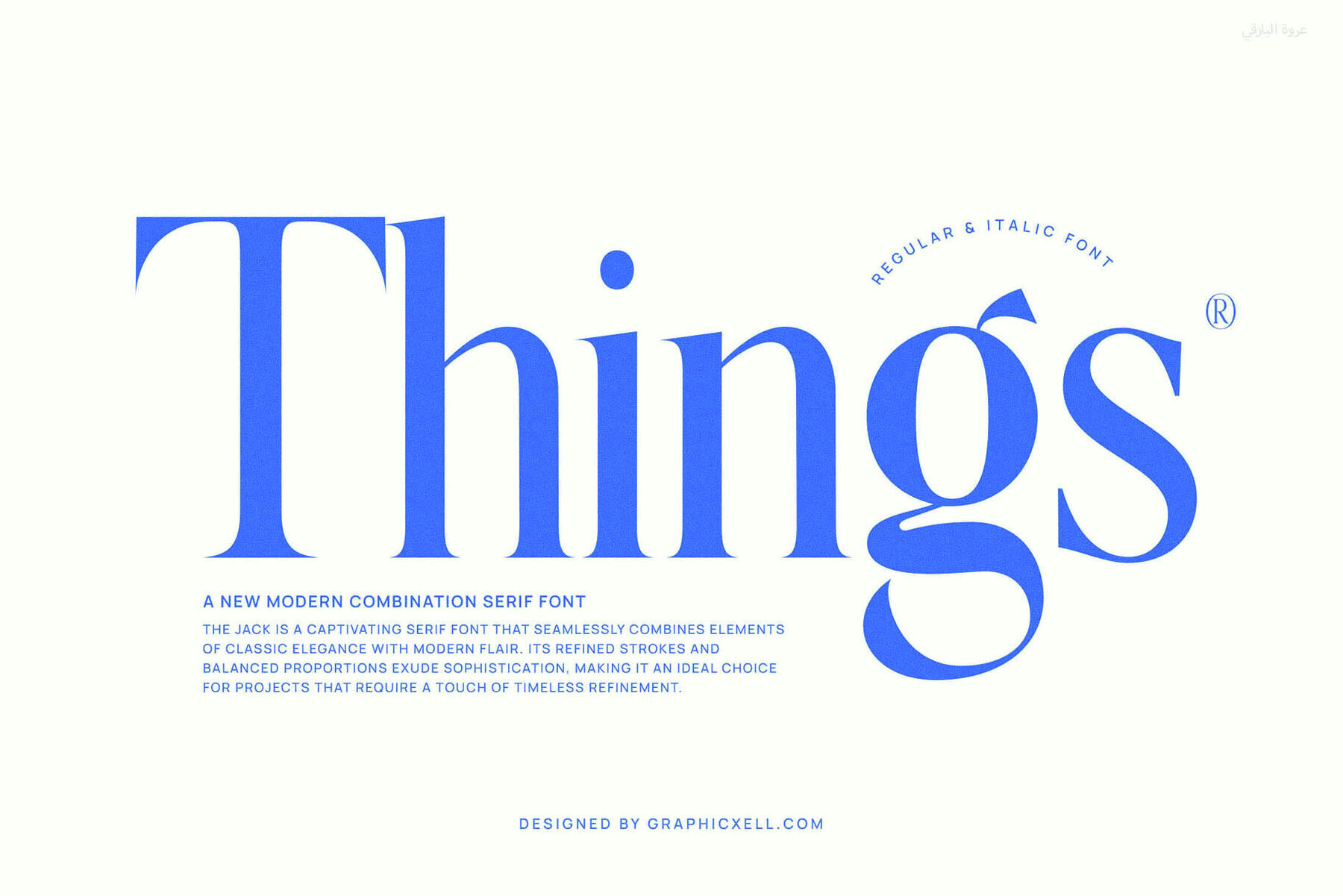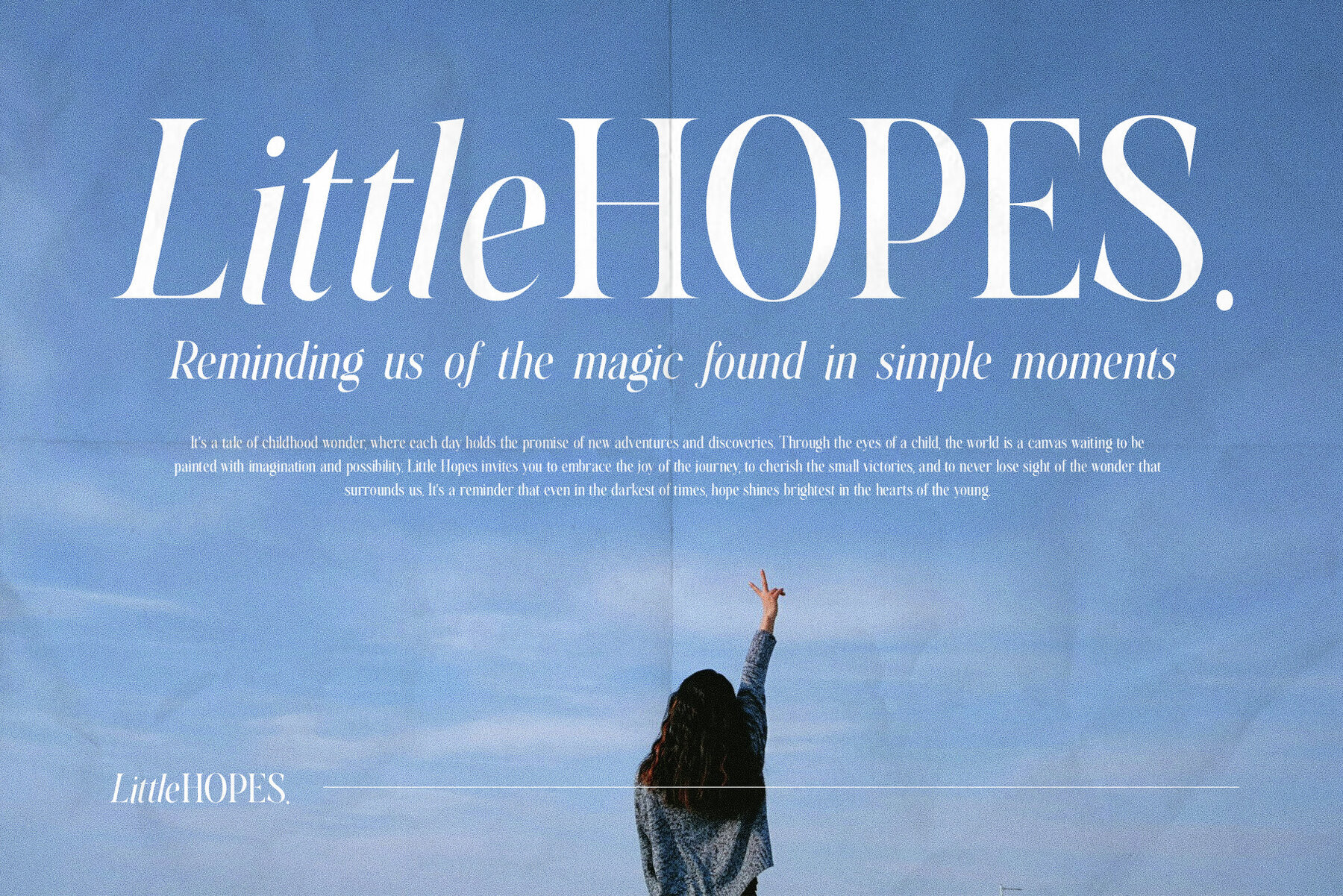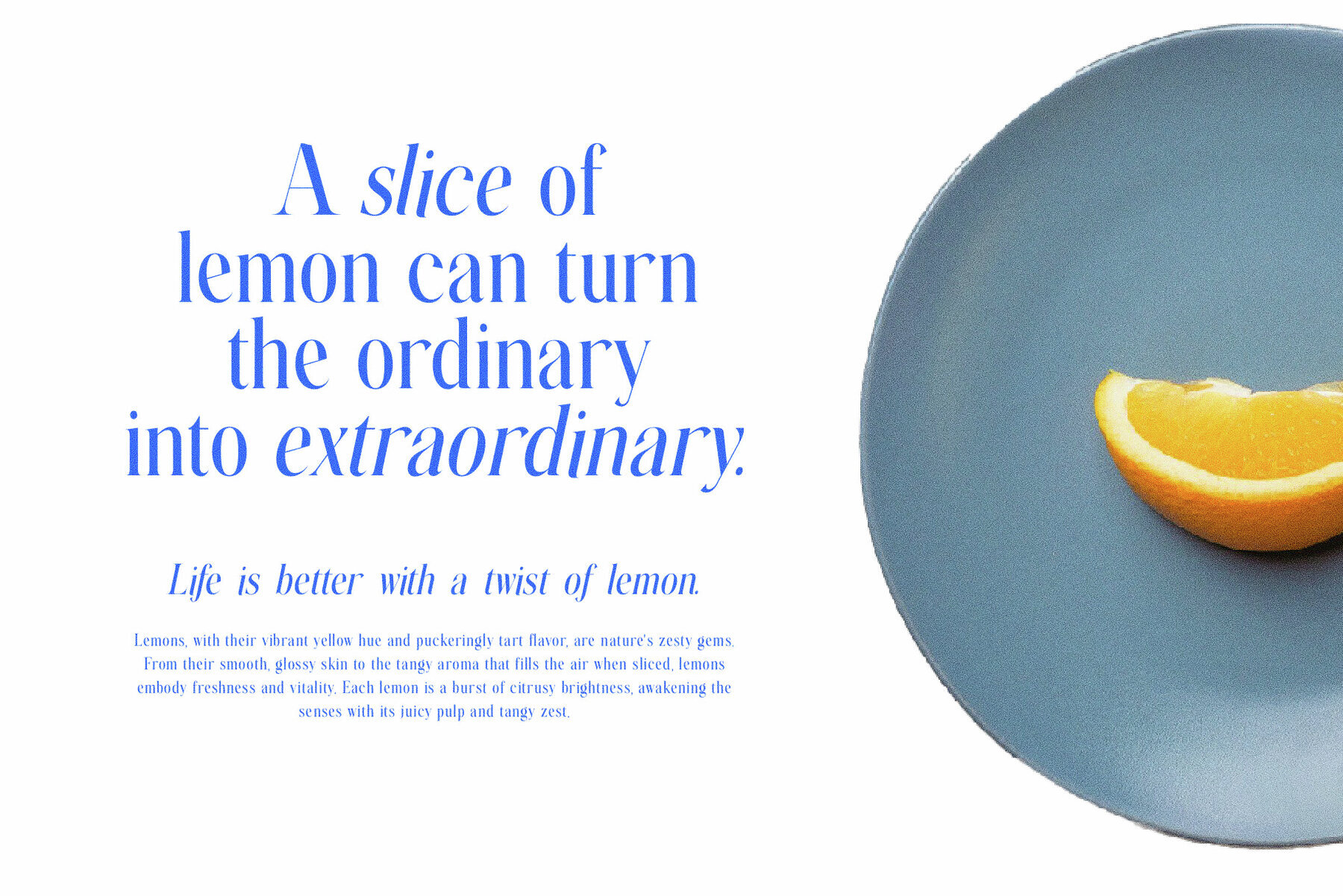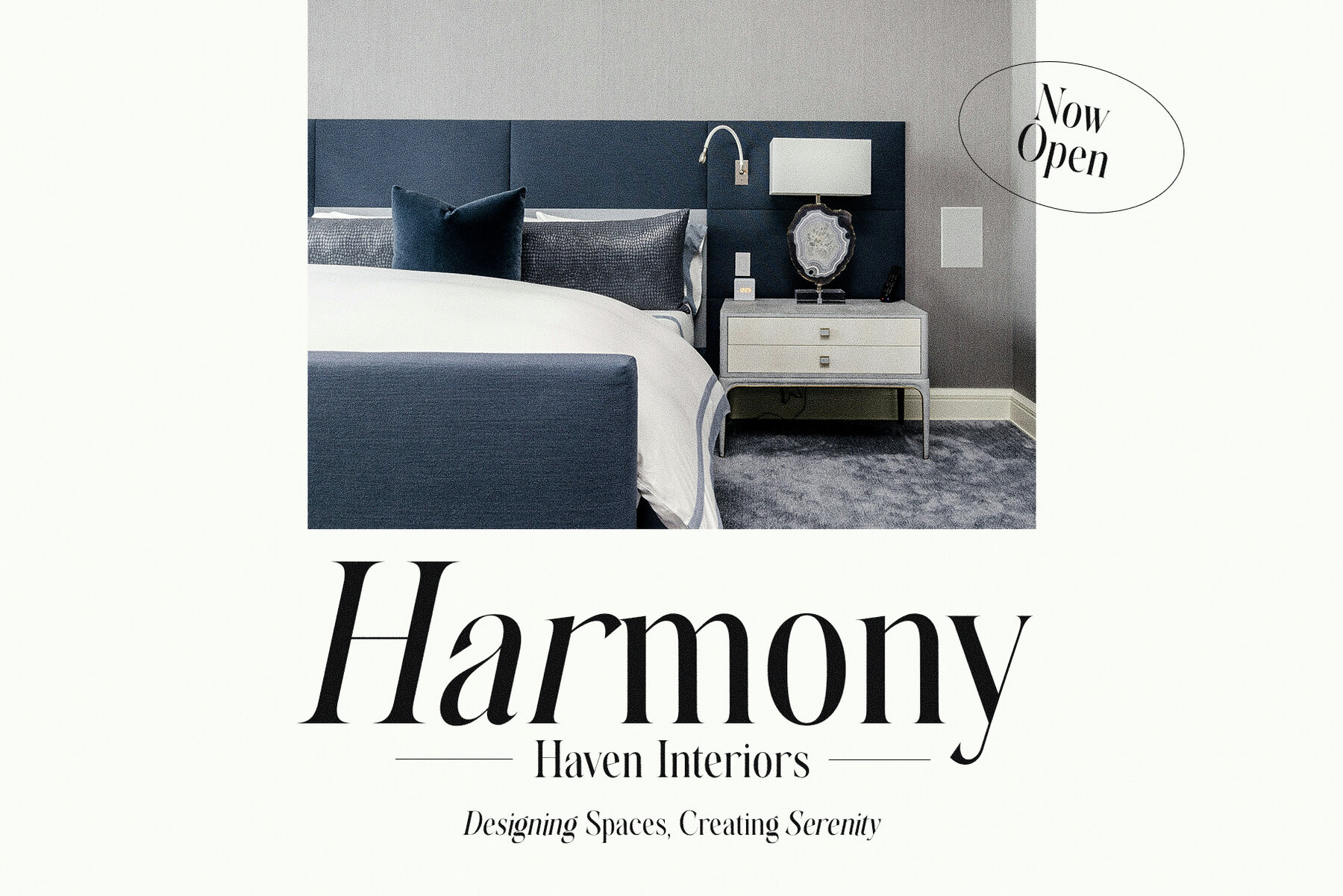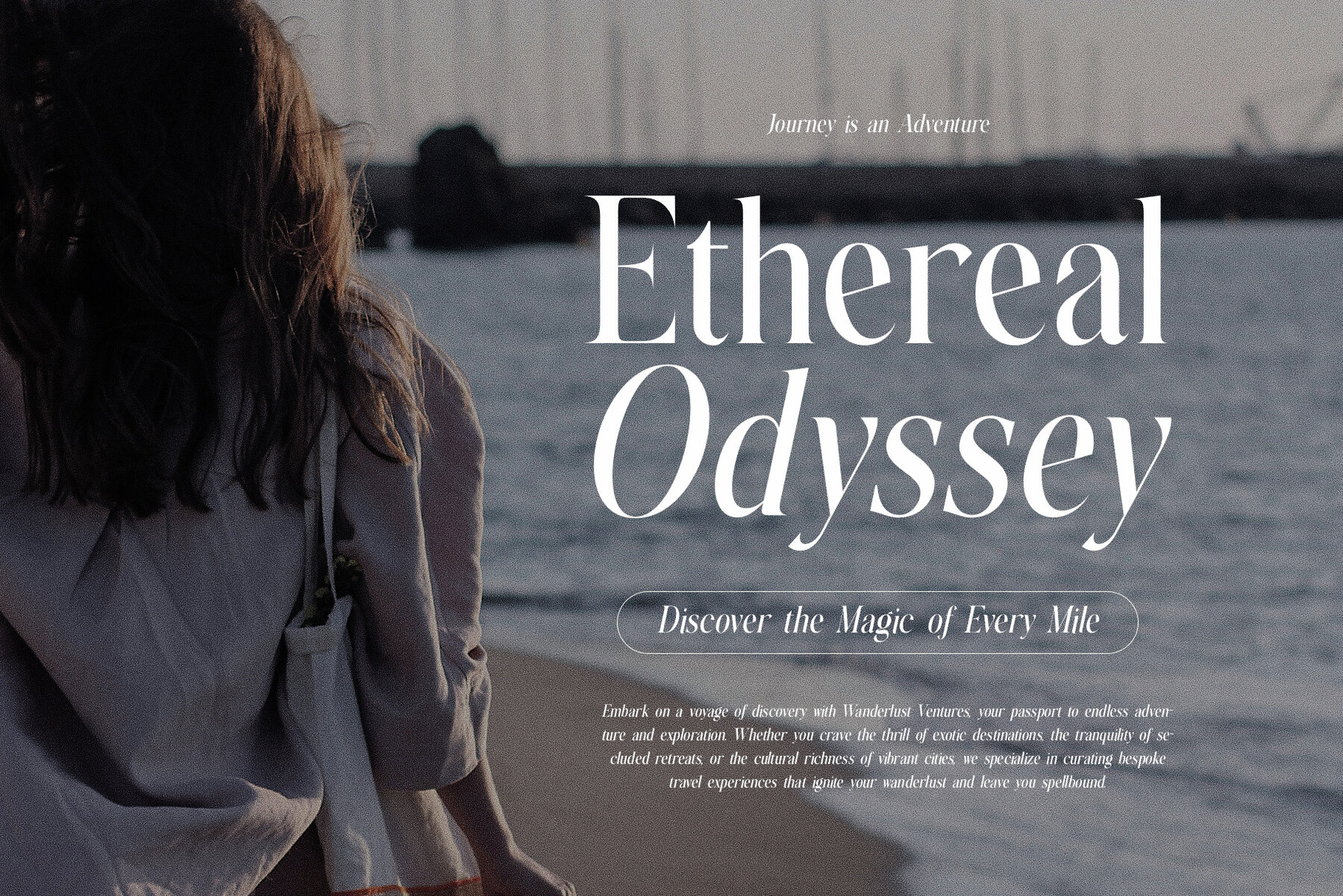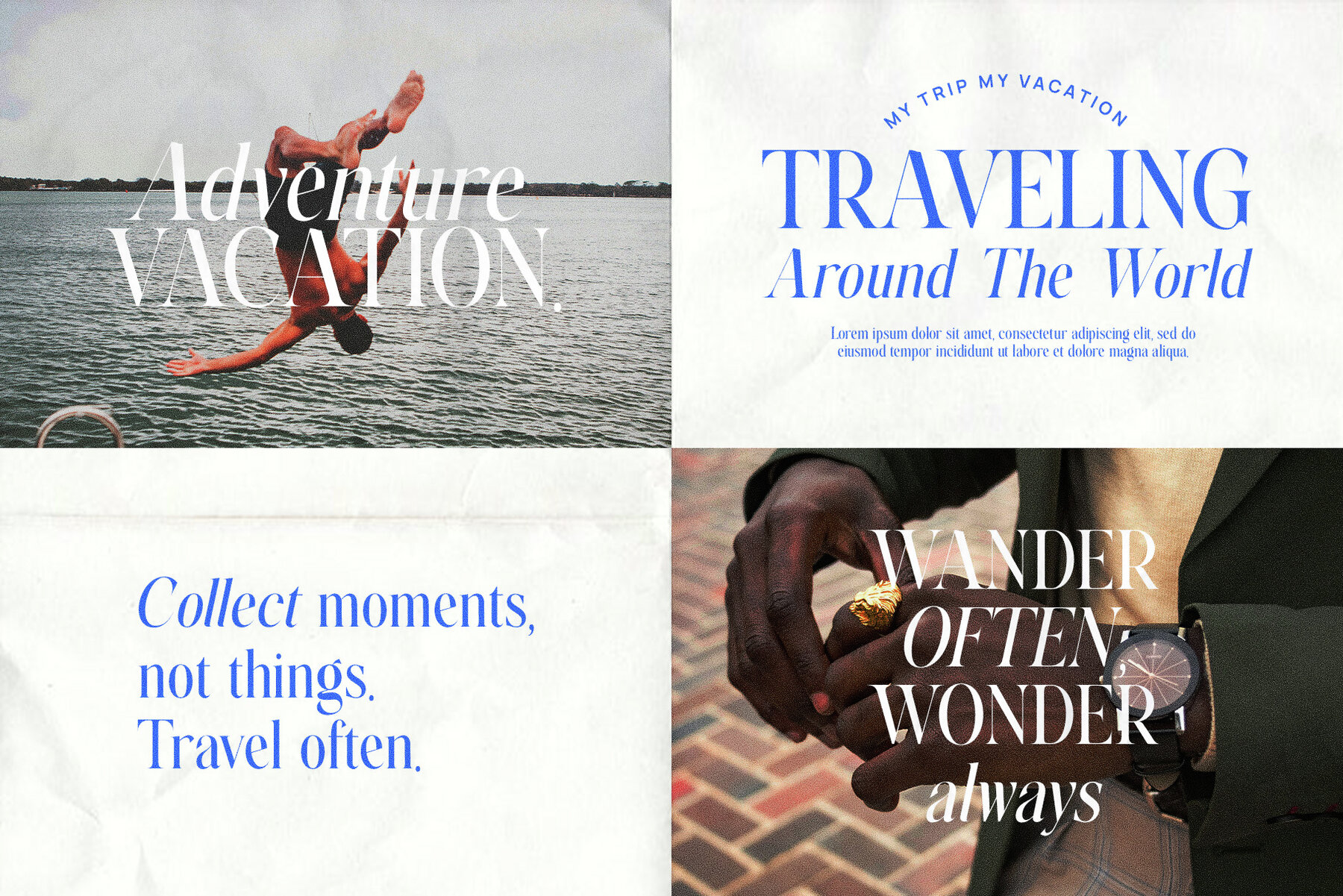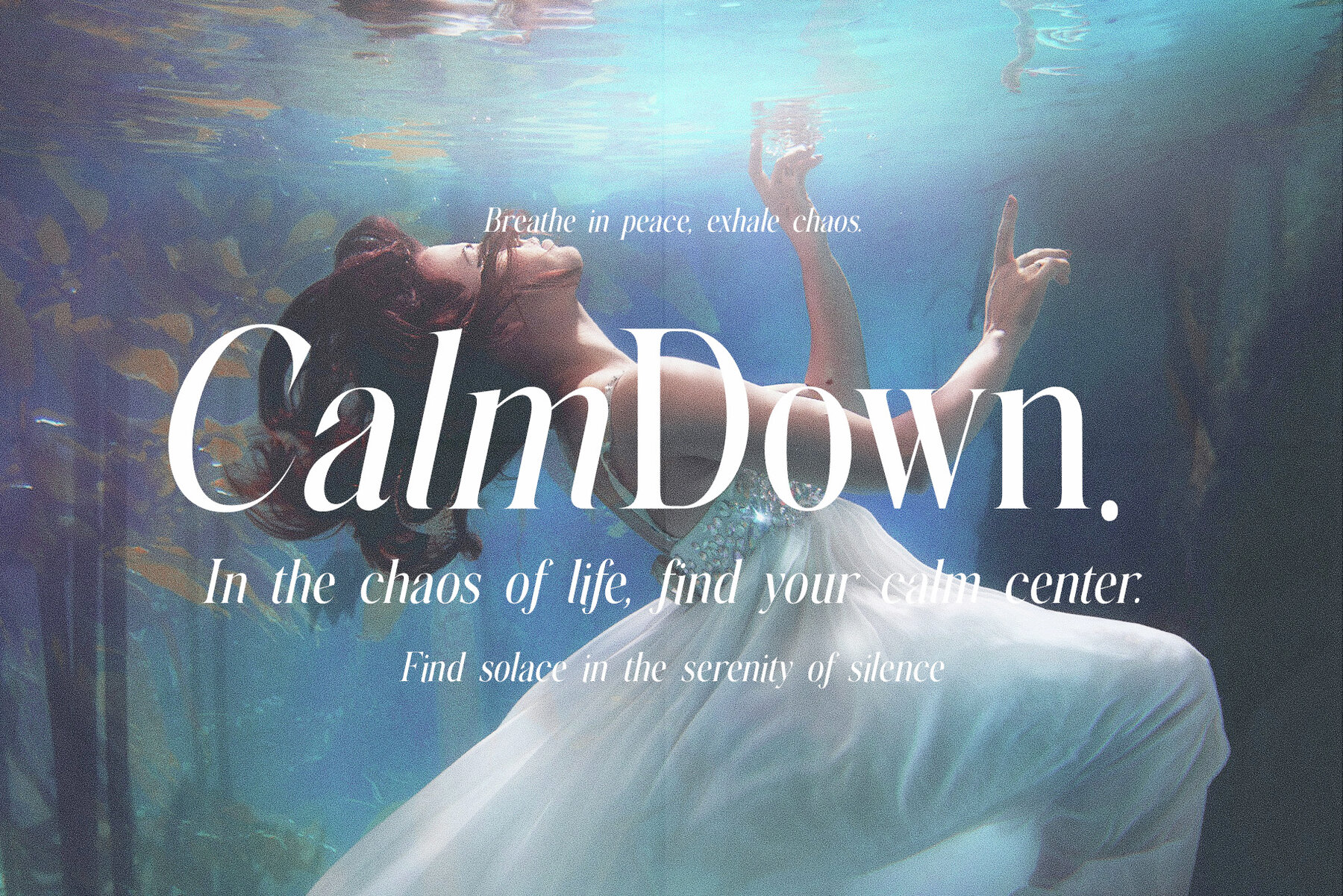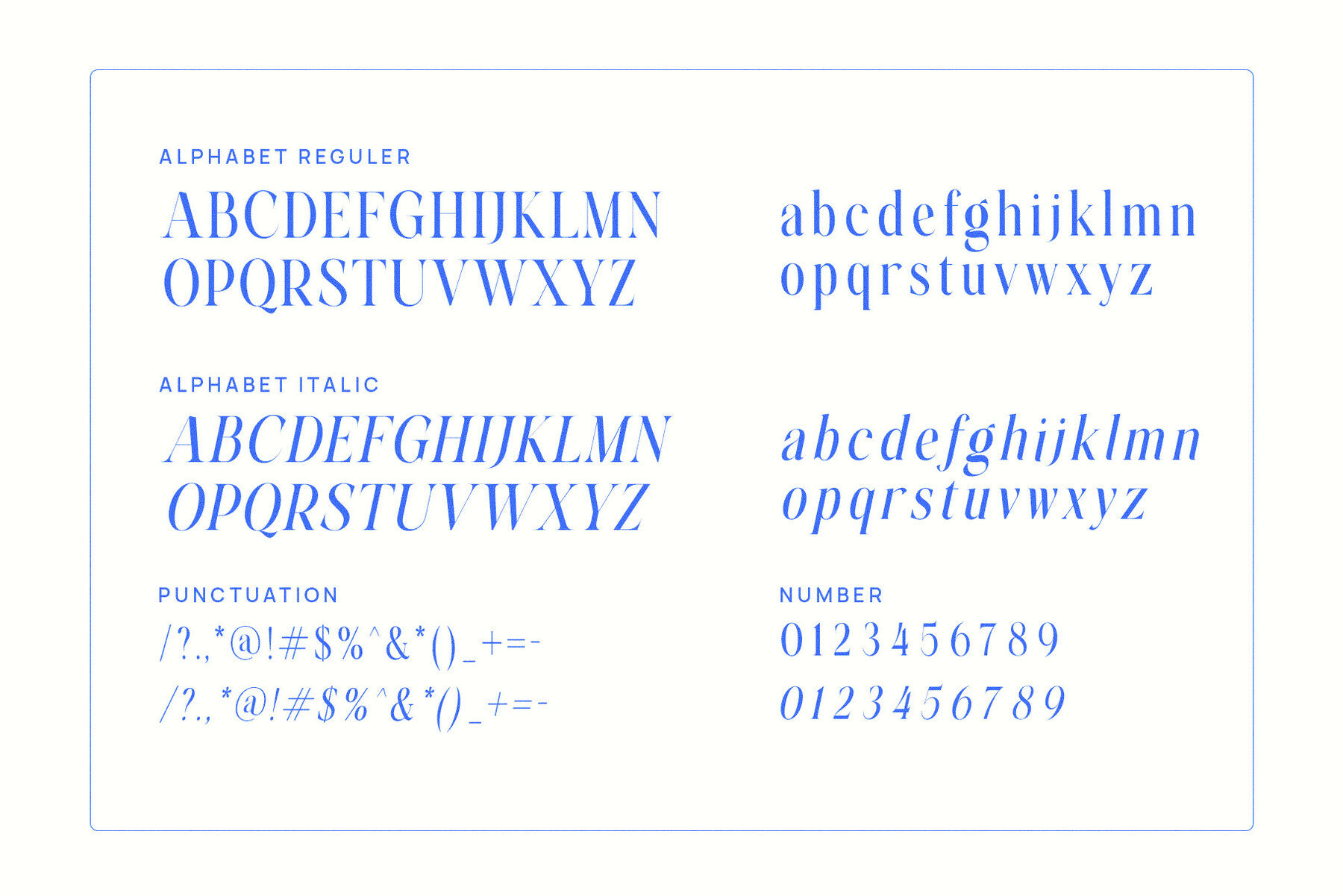
Things Font
Things Serif Font by Usman Albaehaqi
Introducing Things Serif Font, a modern typeface that combines classic elegance with contemporary design elements. Featuring refined strokes and balanced proportions, this serif font offers a sophisticated touch and timeless appeal, ideal for various projects requiring a formal touch.
With its simple letterforms, Things Serif Font ensures high readability, making it perfect for magazines, journals, product designs, and other graphic design projects. This versatile font is designed to capture attention and elevate your work, enhancing the overall aesthetic.
Maximize your design potential with Things Serif Font, a valuable addition to any designer’s toolkit.